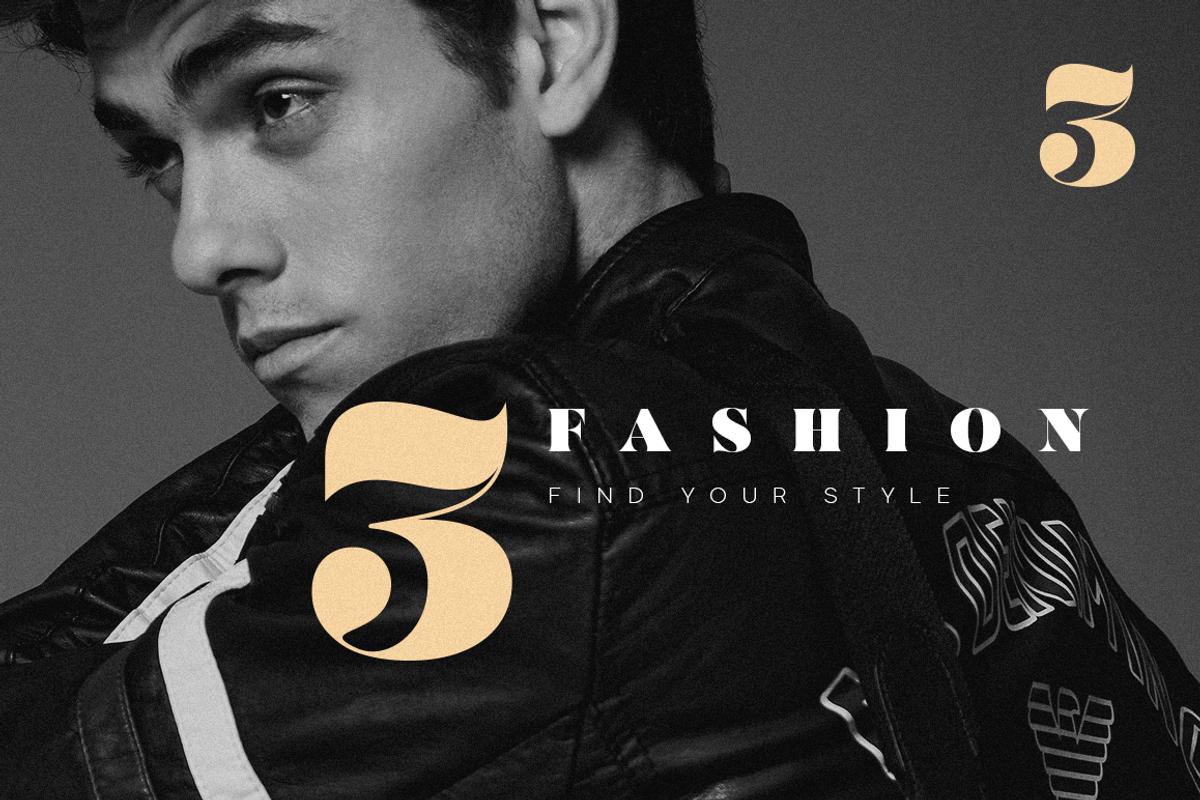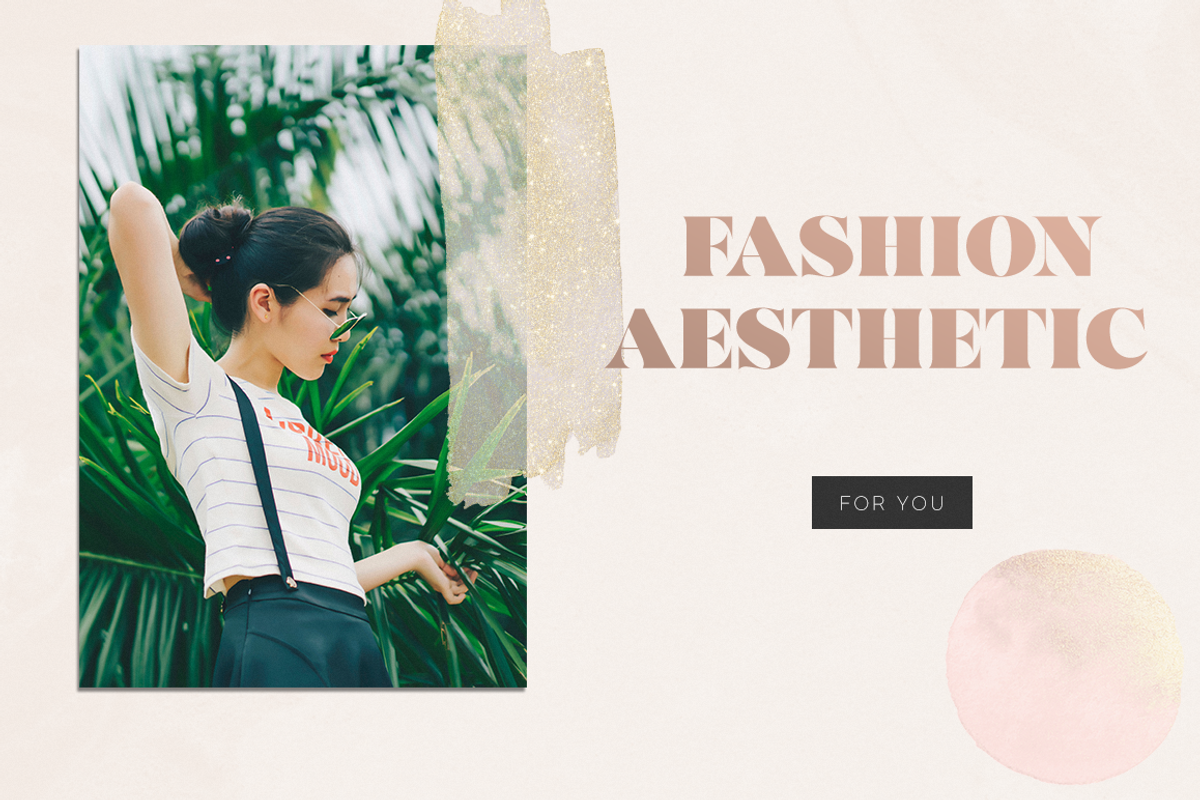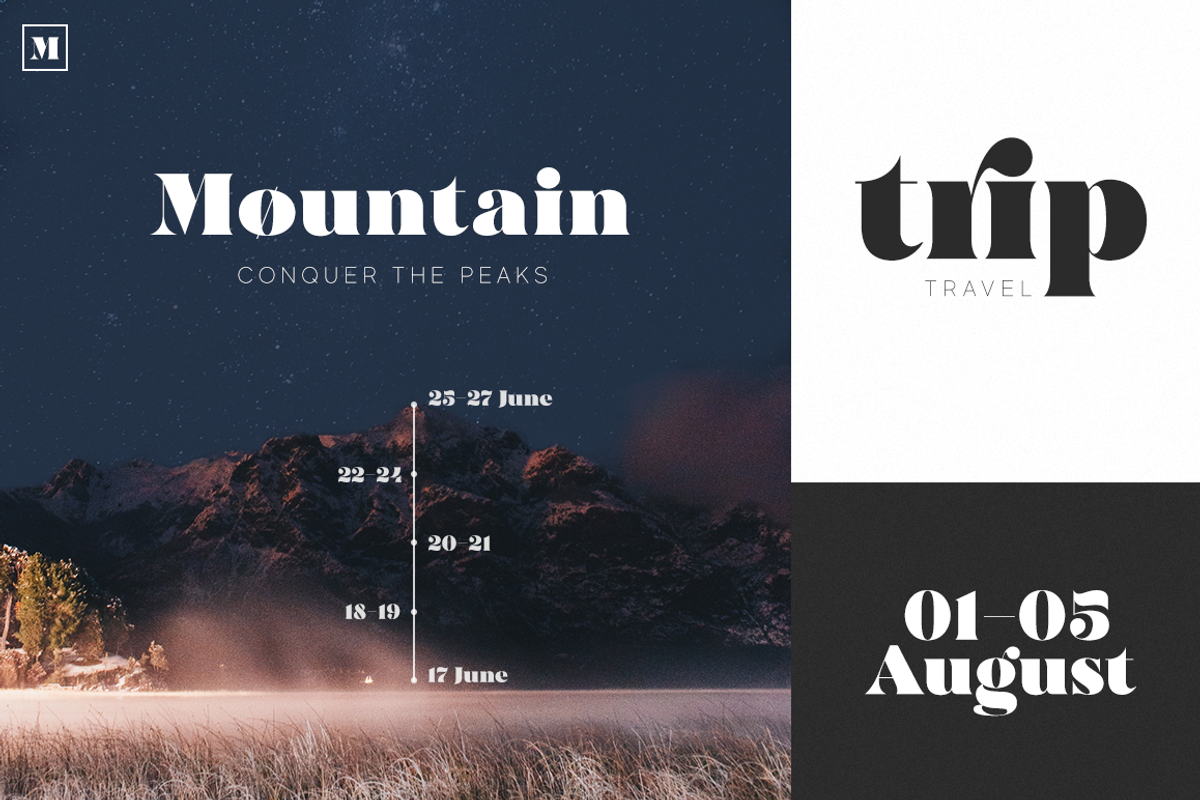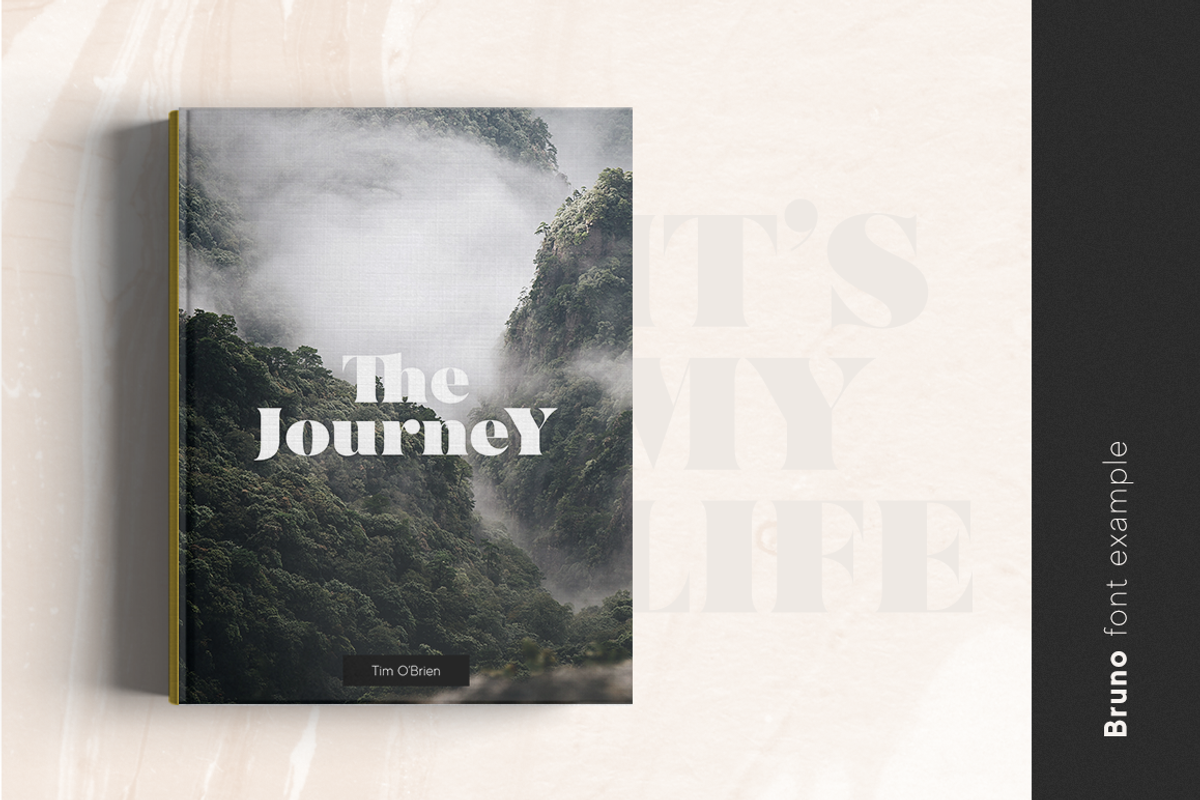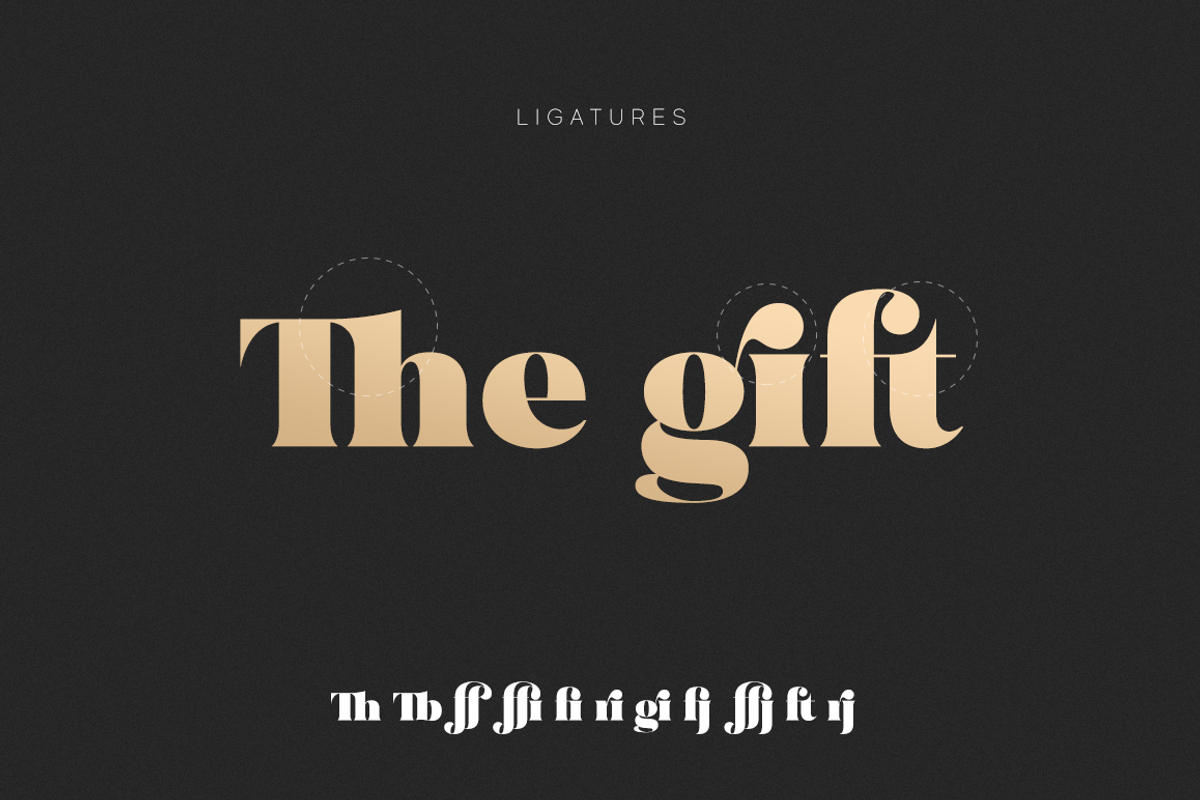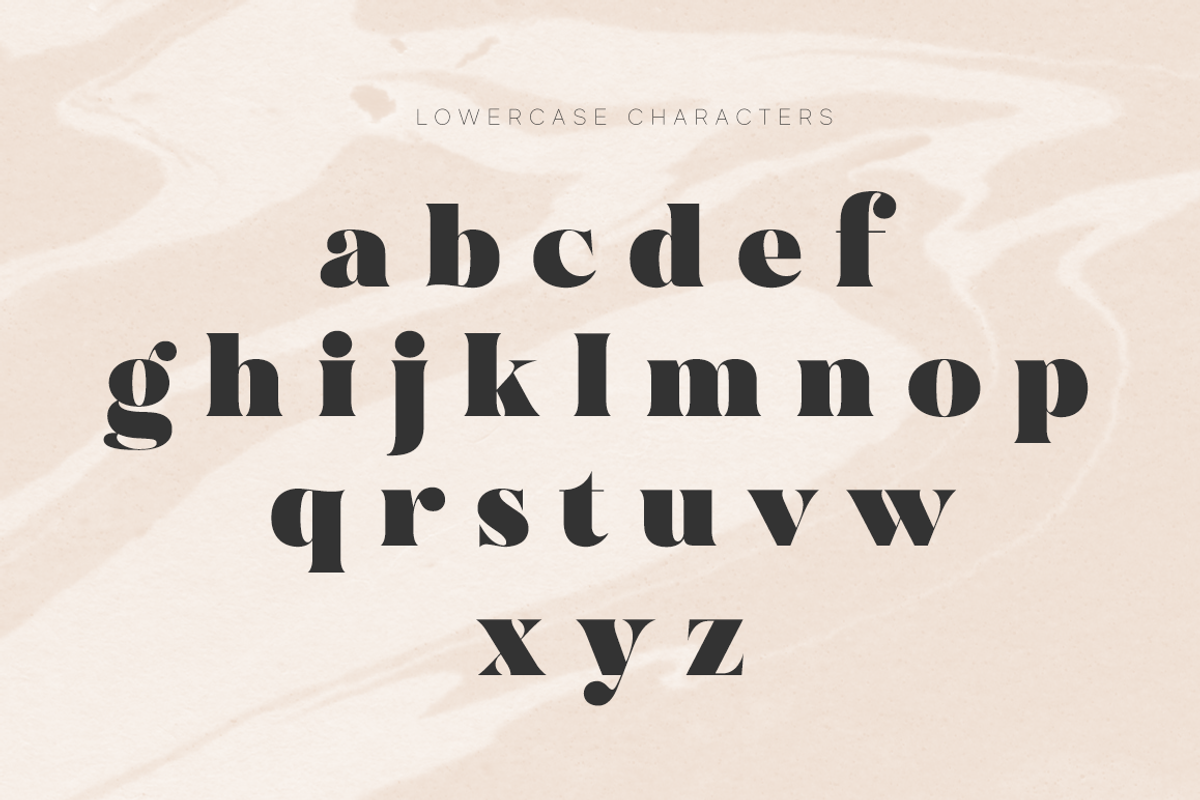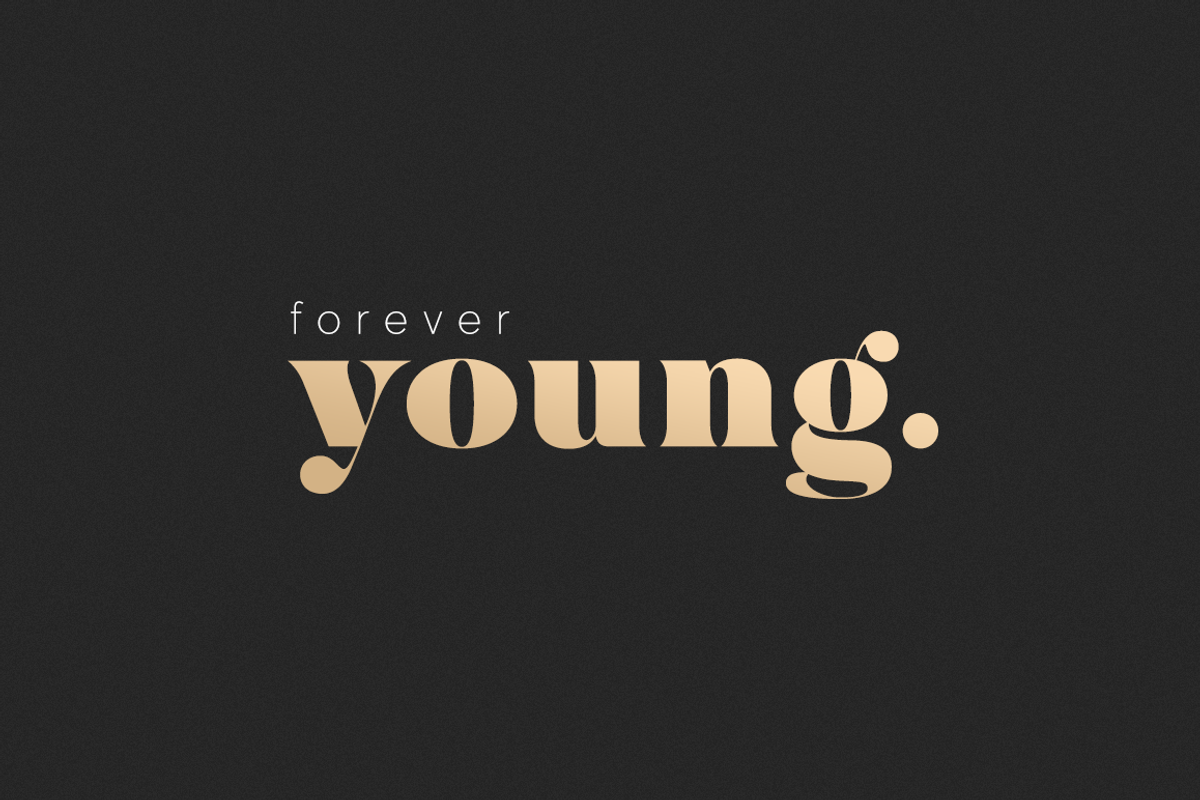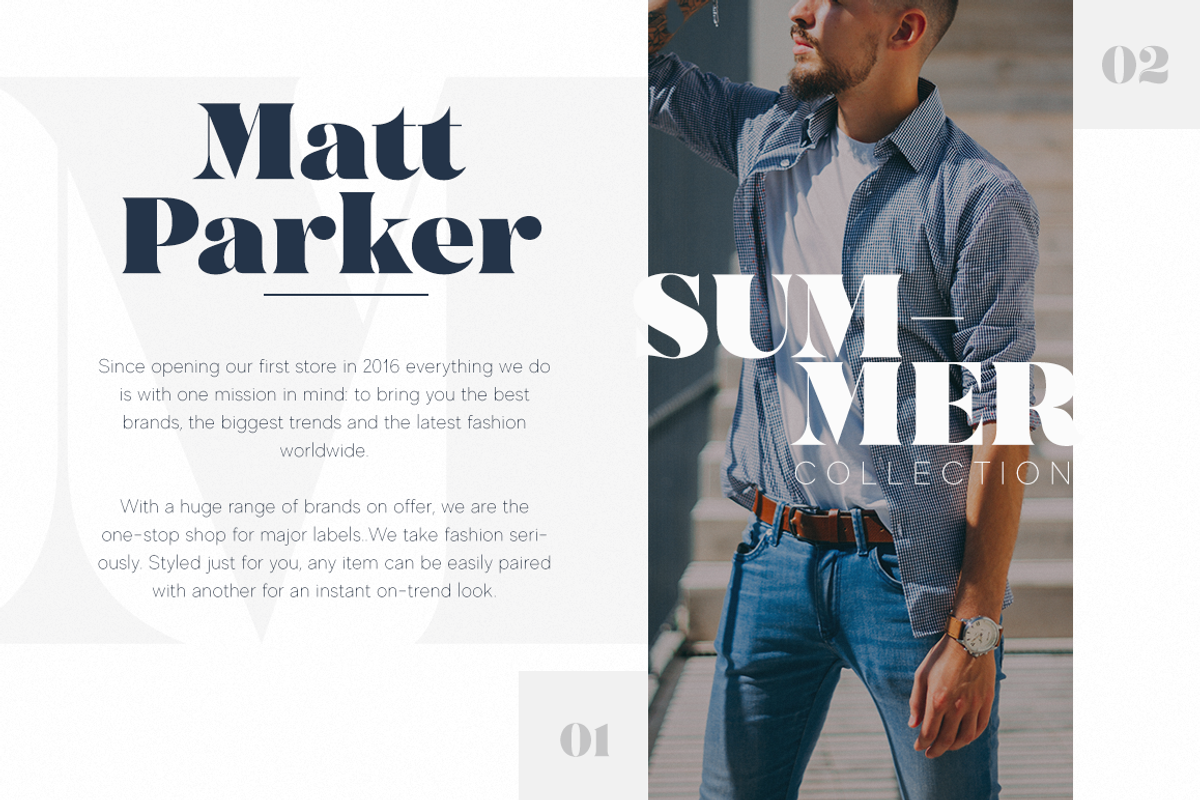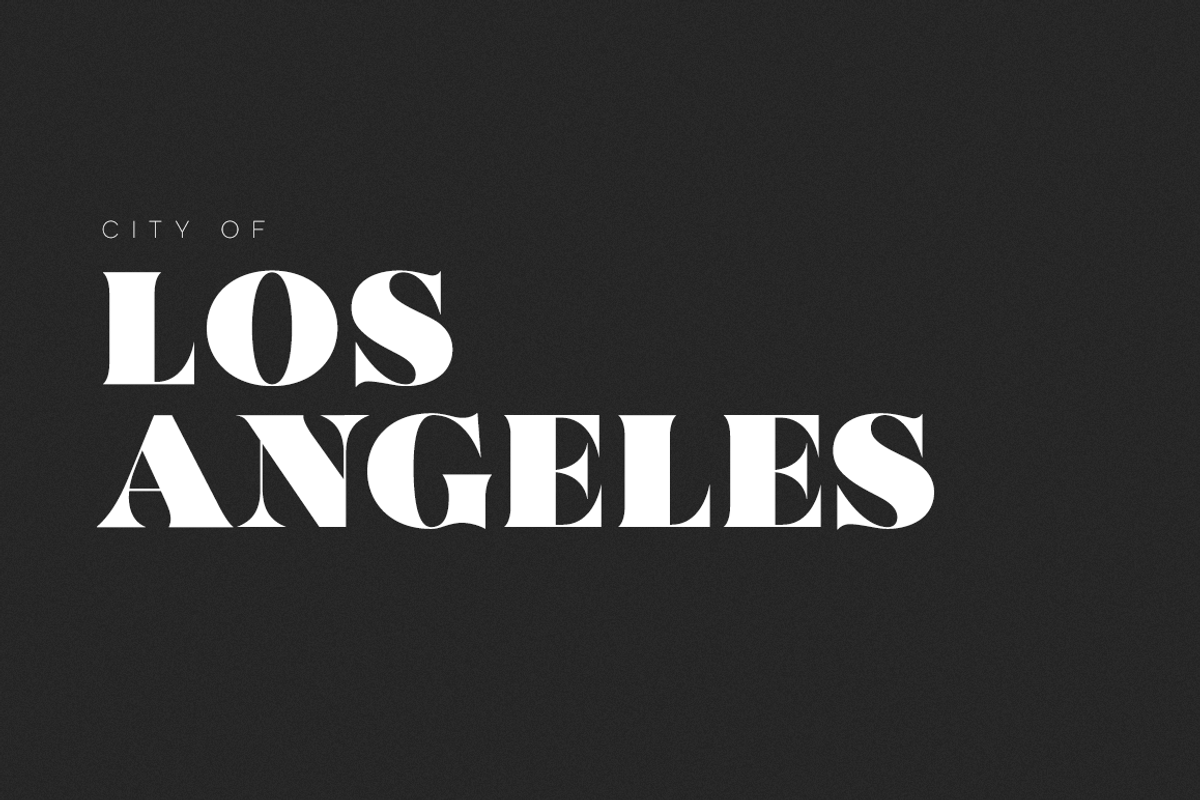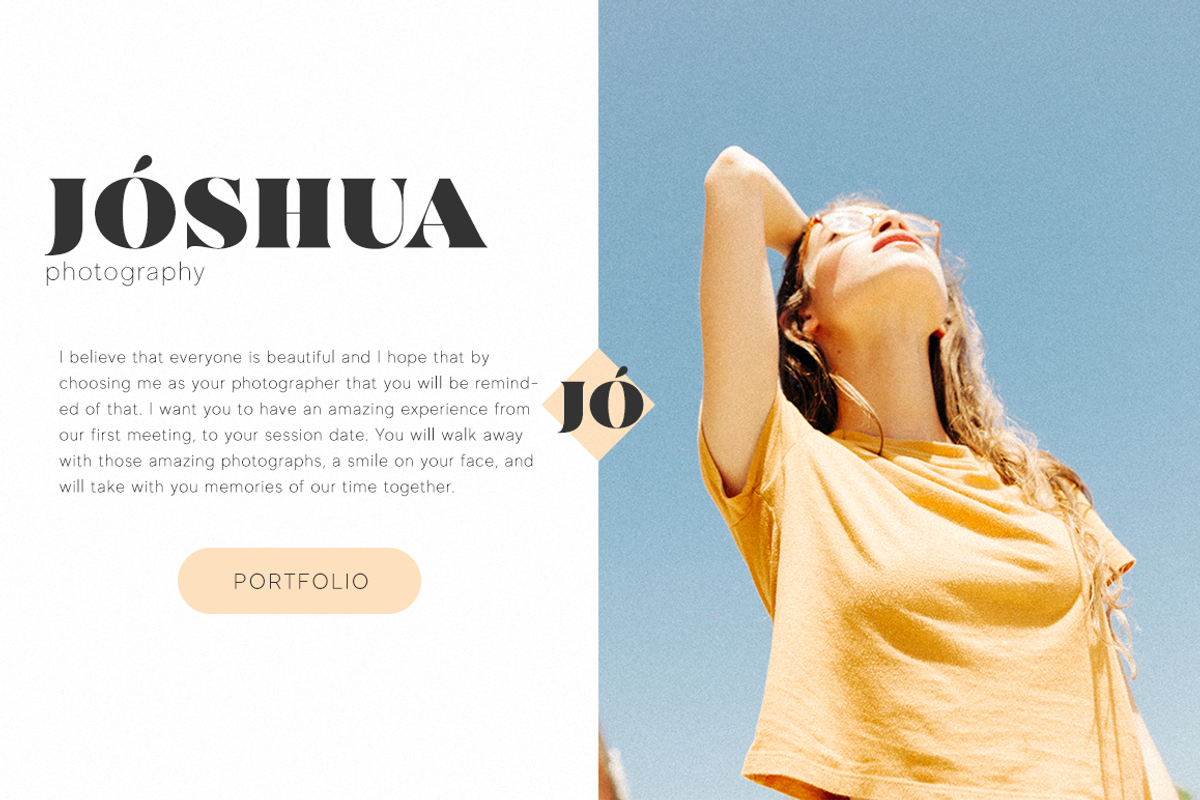
MADE Bruno
MADE Bruno is a modern classic serif typeface with an individual approach in every single letter.
The Bruno will perfect for many project: fashion, magazines, logo, branding, photography, wedding invitations, quotes, blog header, poster, advertisements, etc.
- Uppercase & lowercase letters, numbers, punctuation